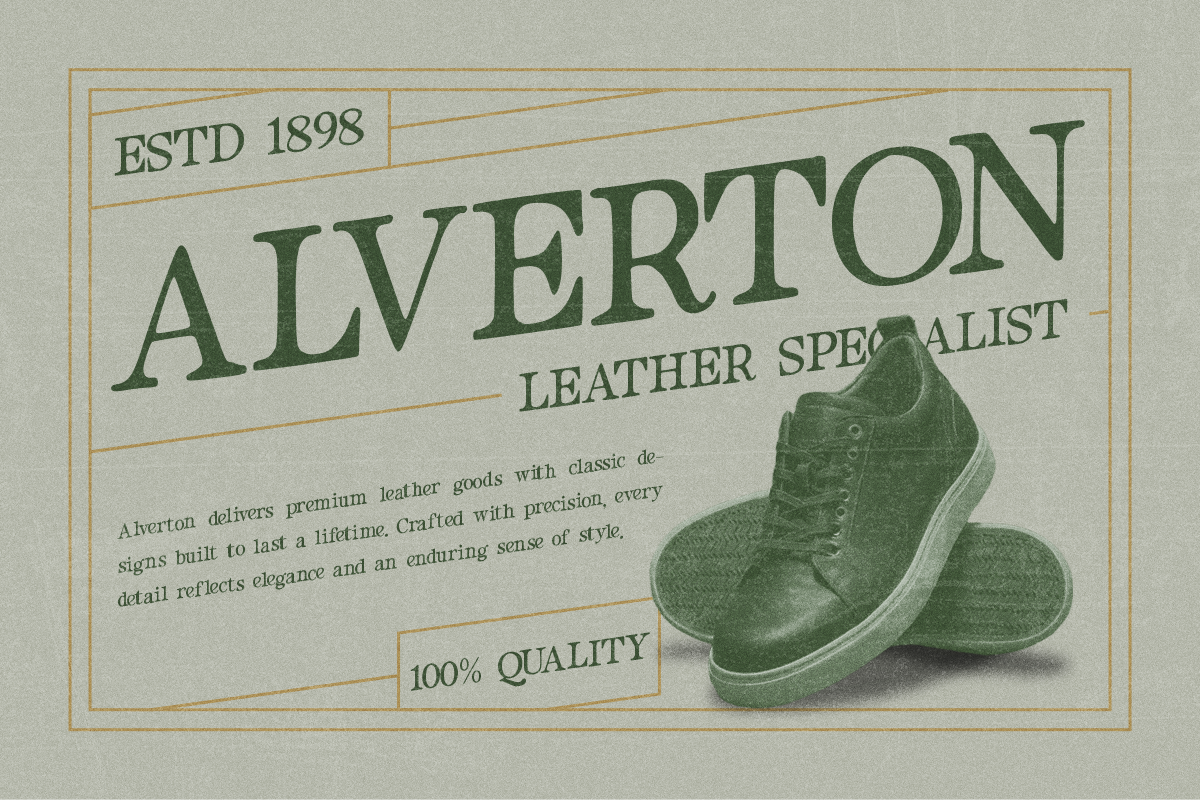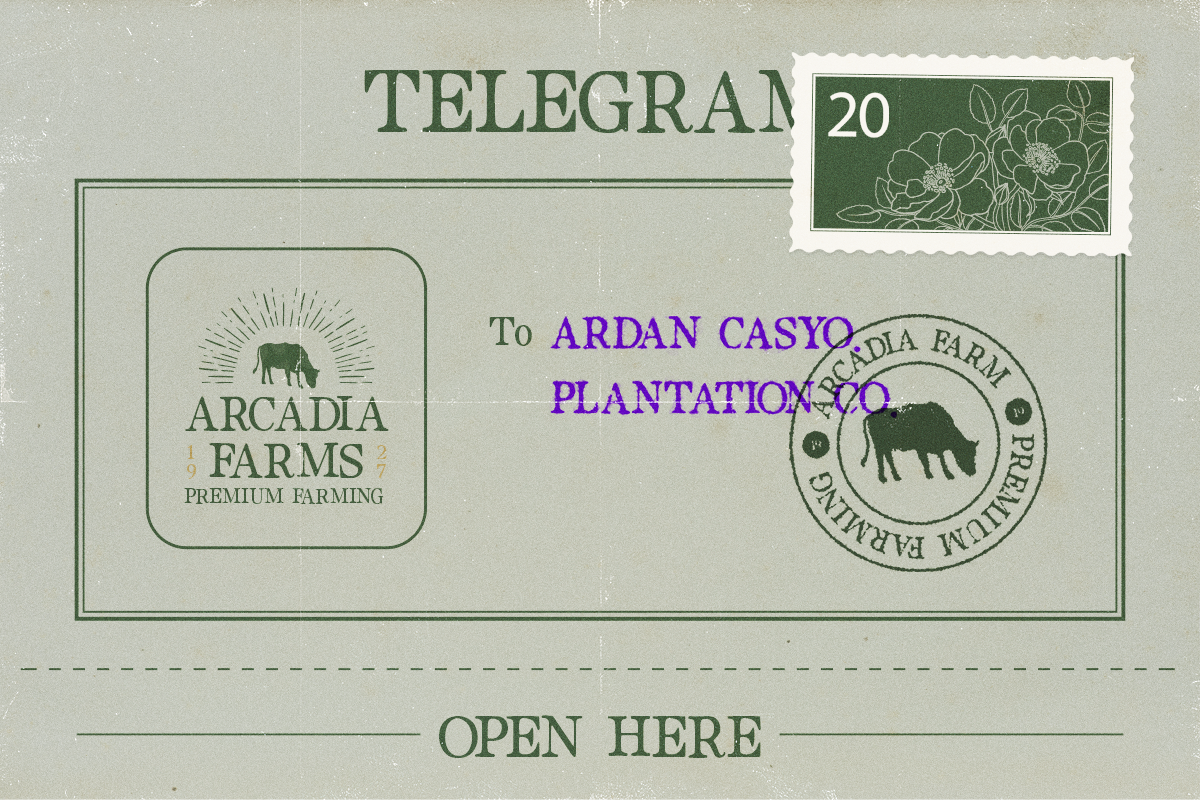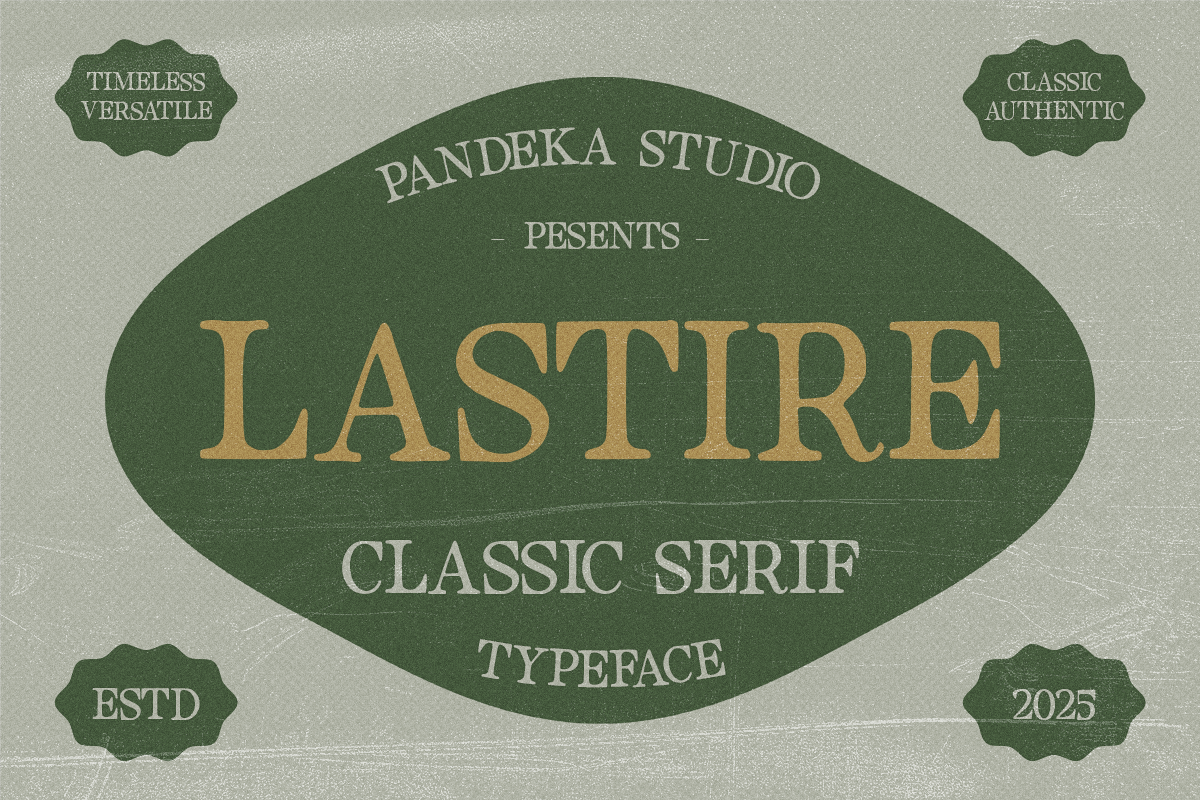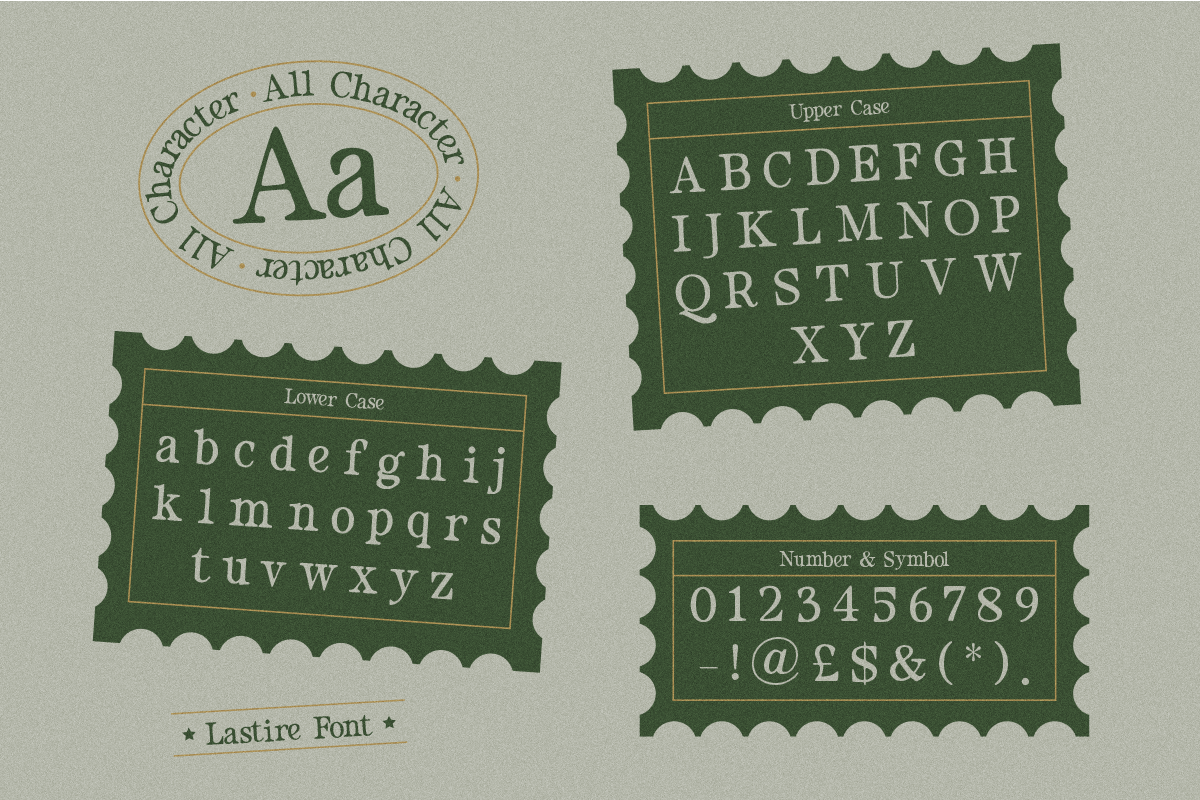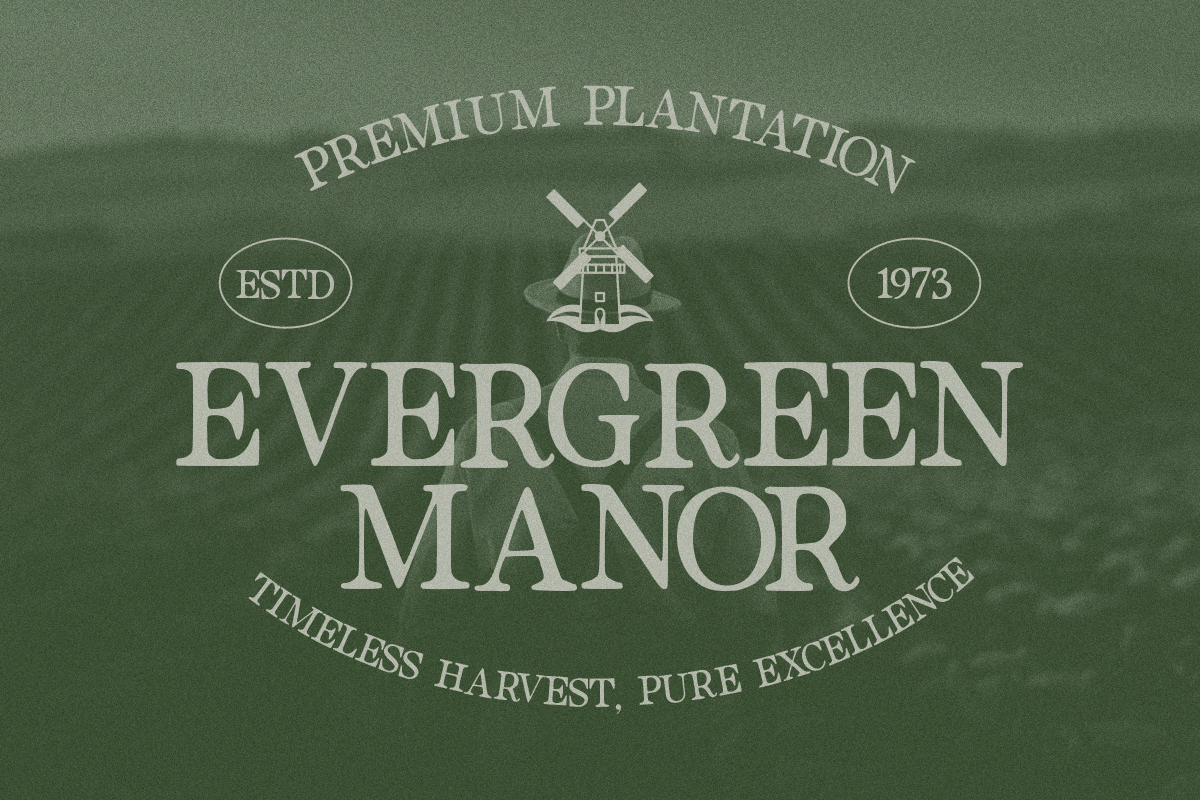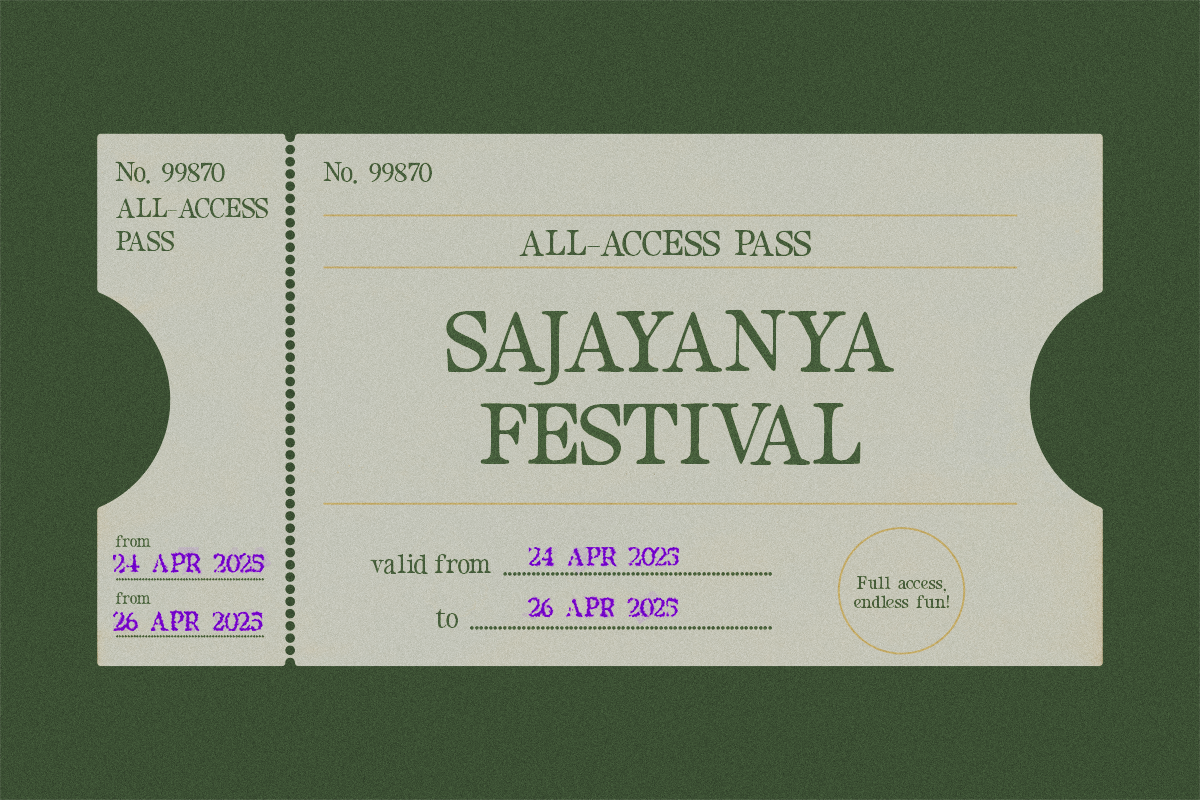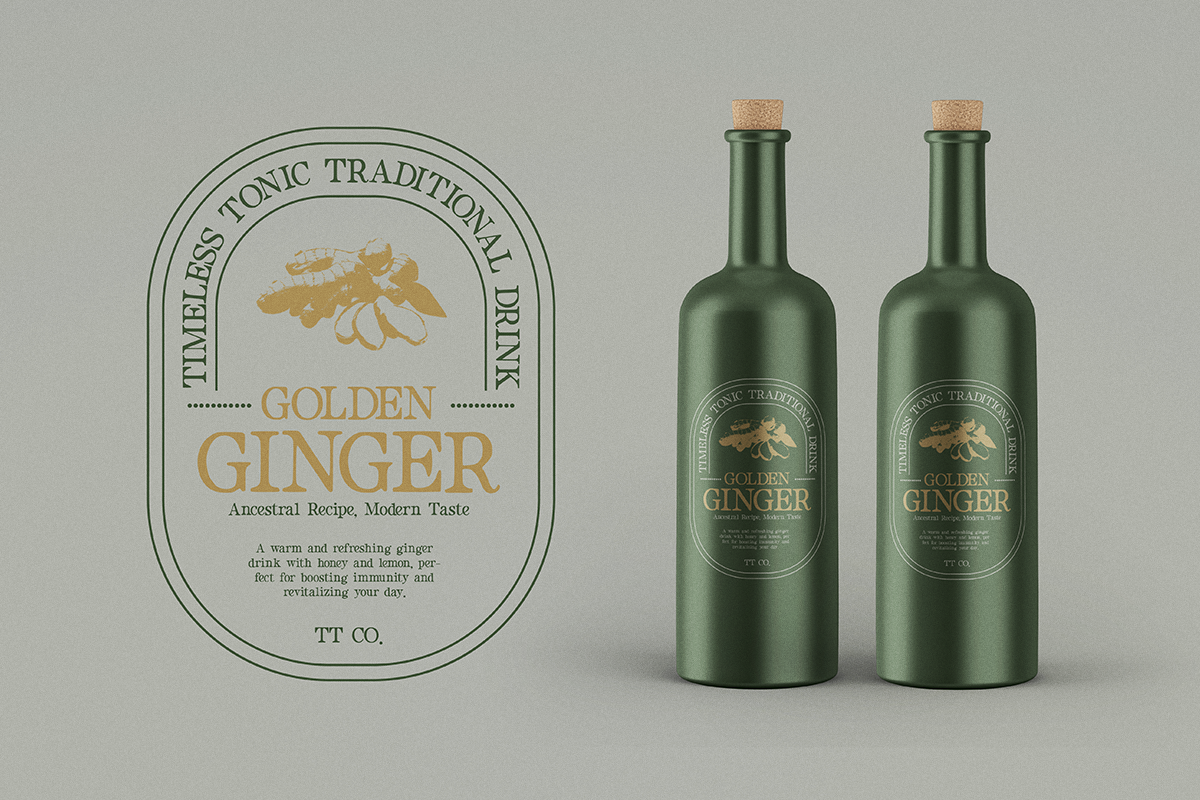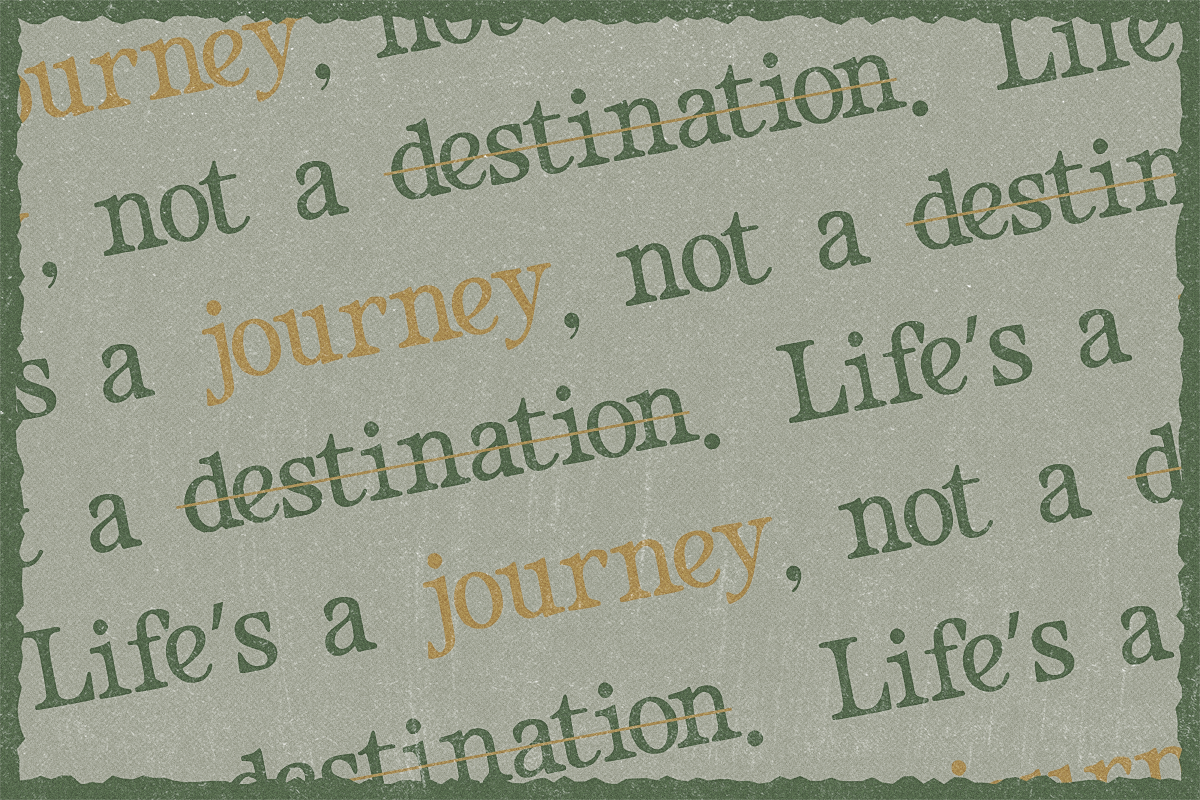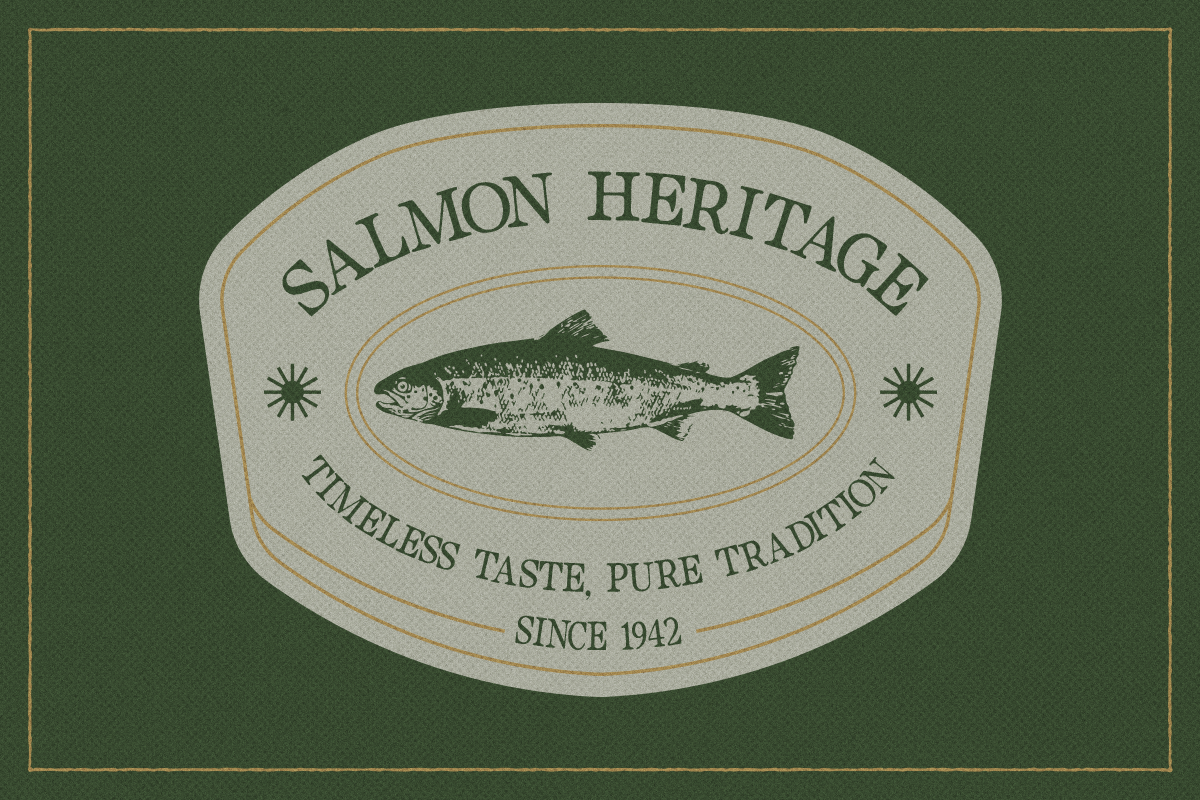
Lastire - Classic Serif Font
Lastire - A classic serif font that combines elegant typography with bold lettering and vintage aesthetics. Perfect for timeless designs, Lastire adds a sophisticated and unique touch to branding, editorial layouts, posters, and packaging. Its high-contrast serifs and vintage stamp effects make it ideal for projects that demand a blend of retro charm and modern refinement.
- 1 Style: Regular
- Full Character Set: Uppercase, lowercase, numbers, symbols, and punctuation